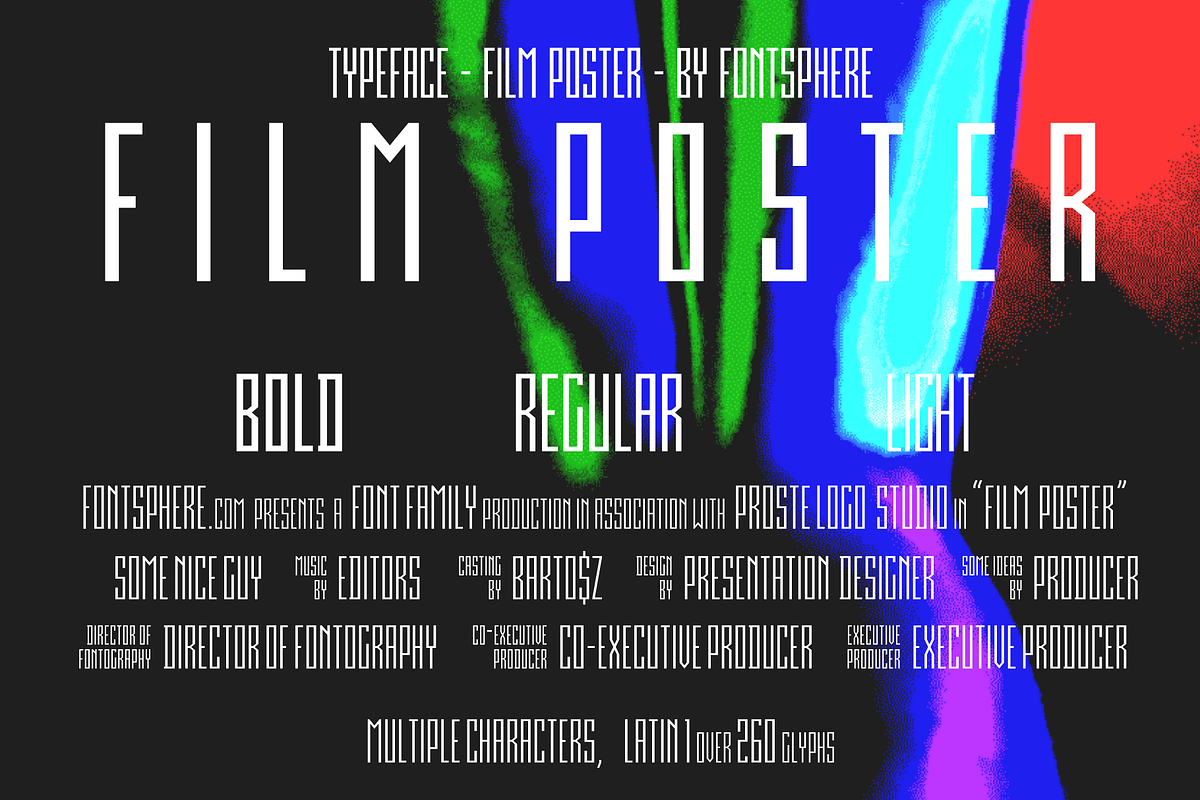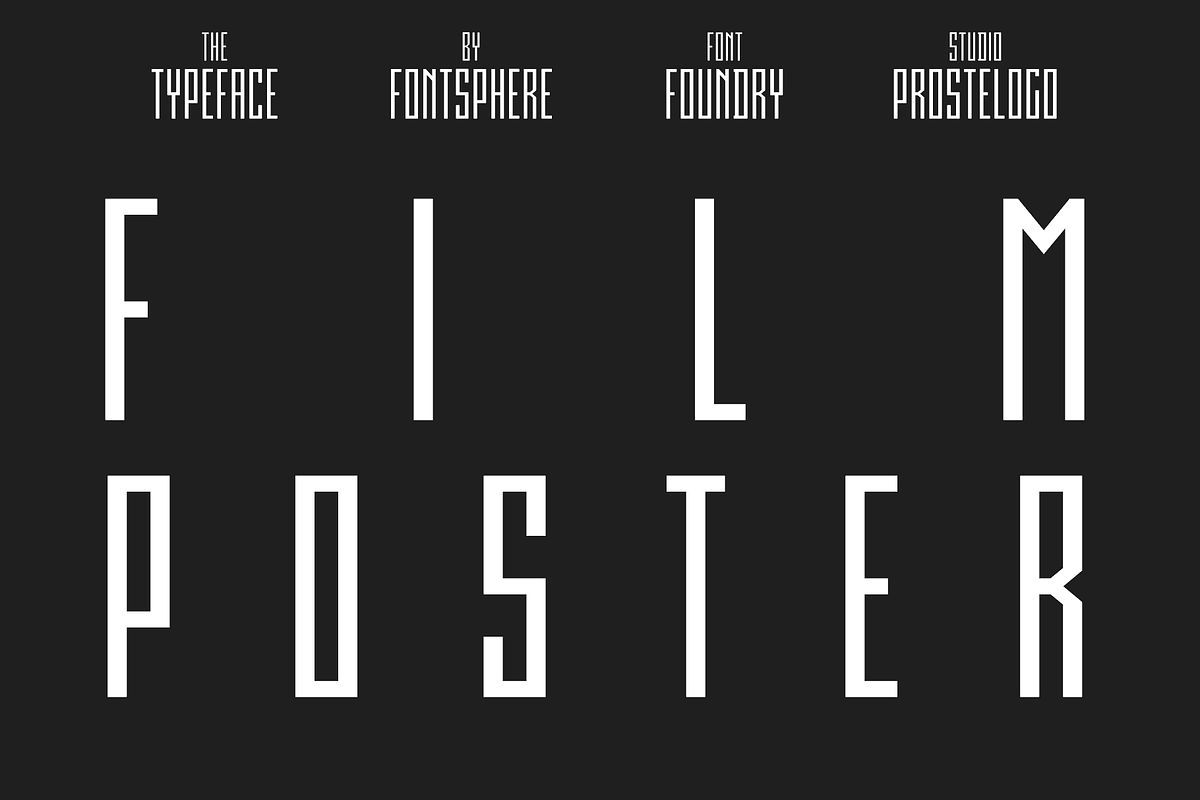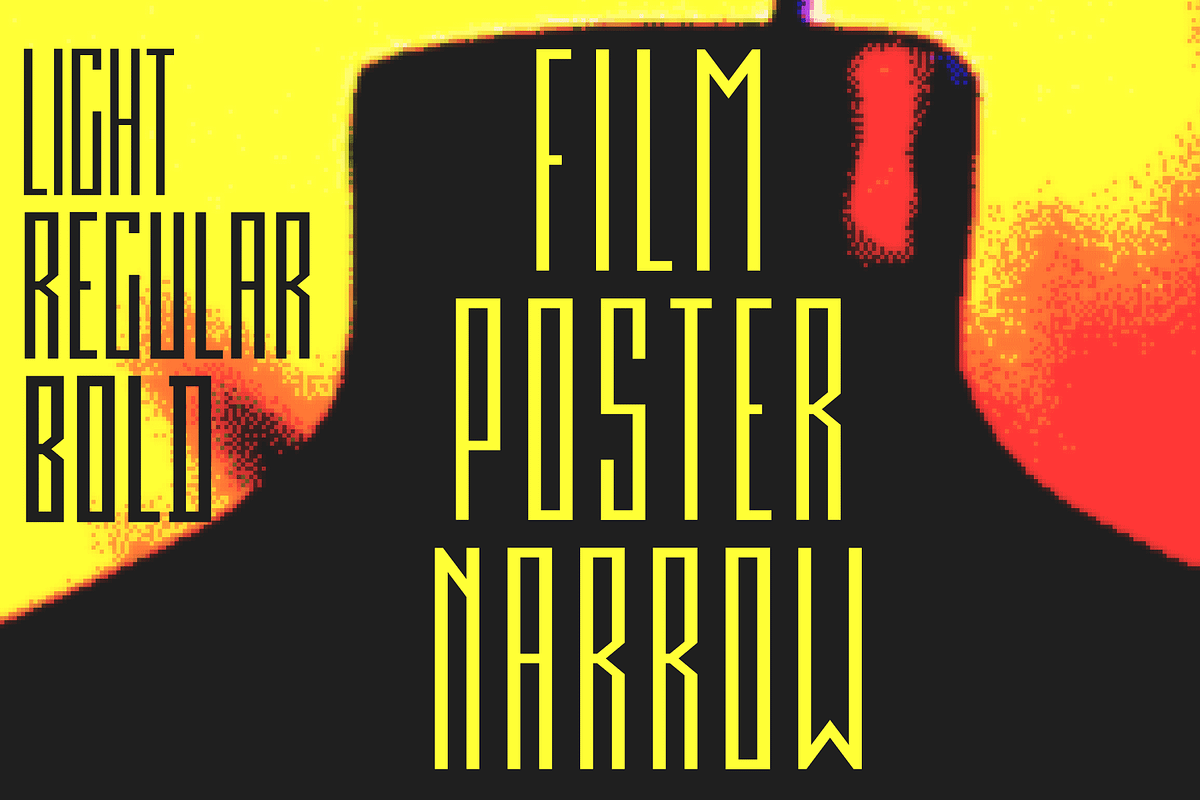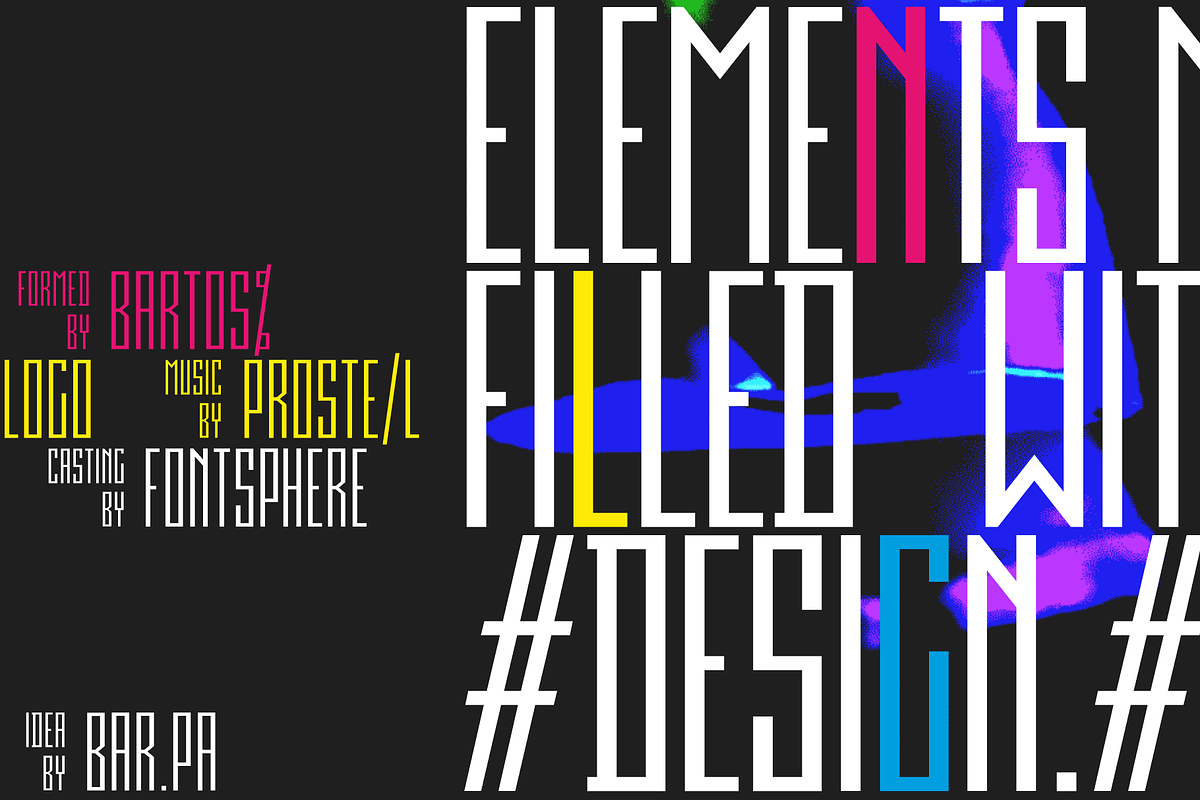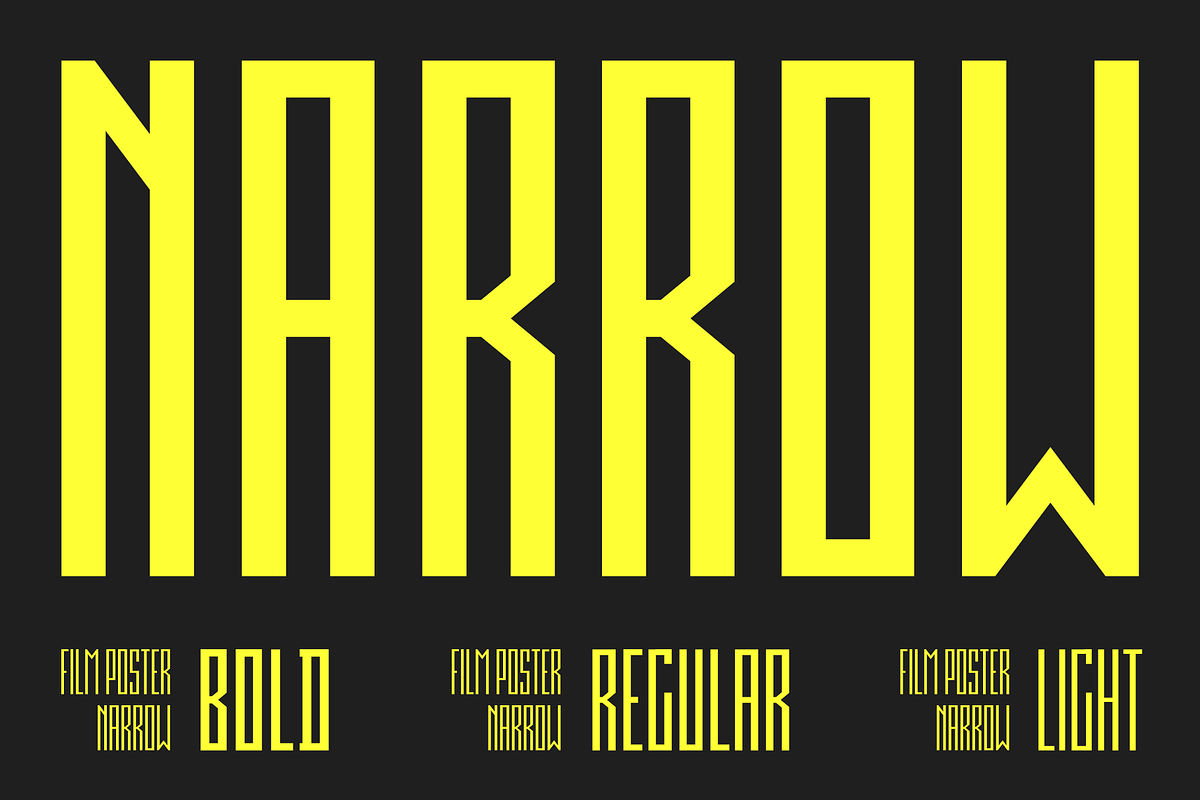
Film Poster Family | 9 Fonts
Film Poster Font Family - 9 font pack:
Film Poster Narrow Light
Film Poster Narrow Regular
Film Poster Narrow Bold
Film Poster Wide Light
Film Poster Wide Regular
Film Poster Wide Bold
Film Poster Font Family
Ultra condensed sans serif display typeface with geometric forms. It can be used in many creative ways, all kinds of graphics, posters, advertising materials, text composition. It fits perfectly for the film industry as well as many other fields.
Each font include multilingual support (Latin-1), uppercase and lowercase letters, numerals and a large range of punctuation.